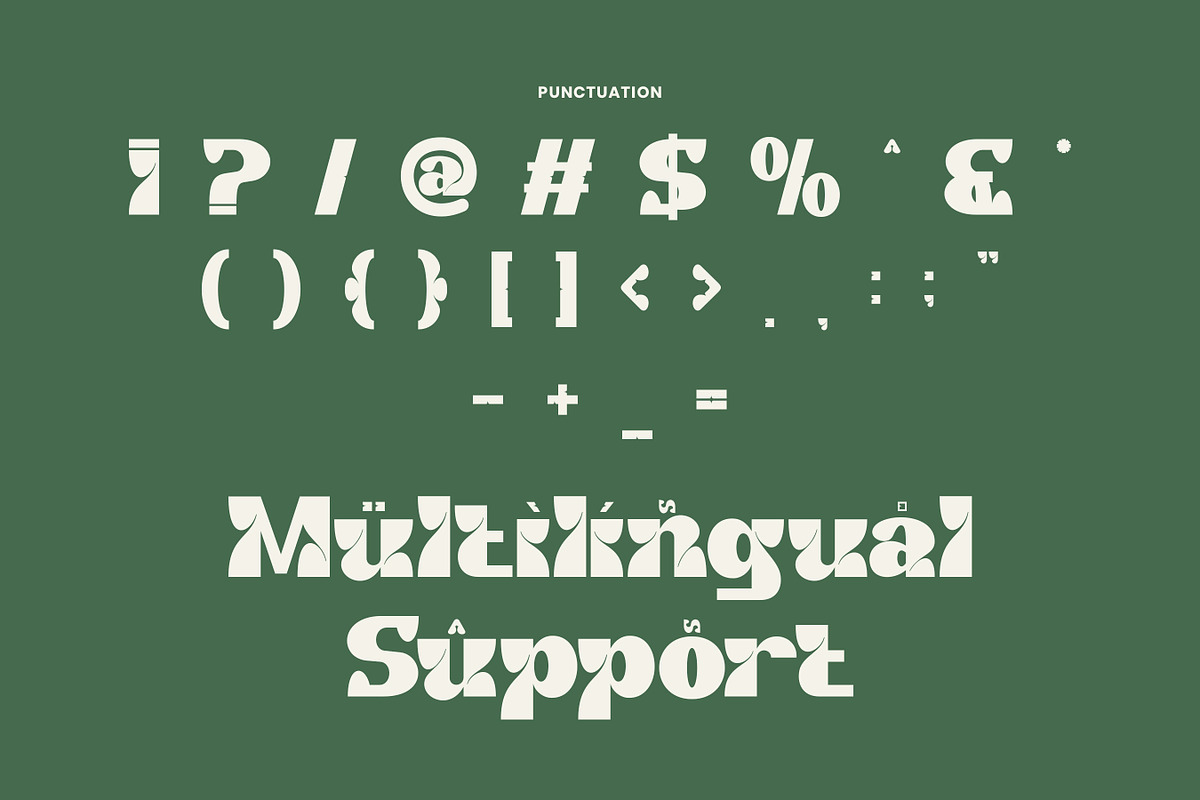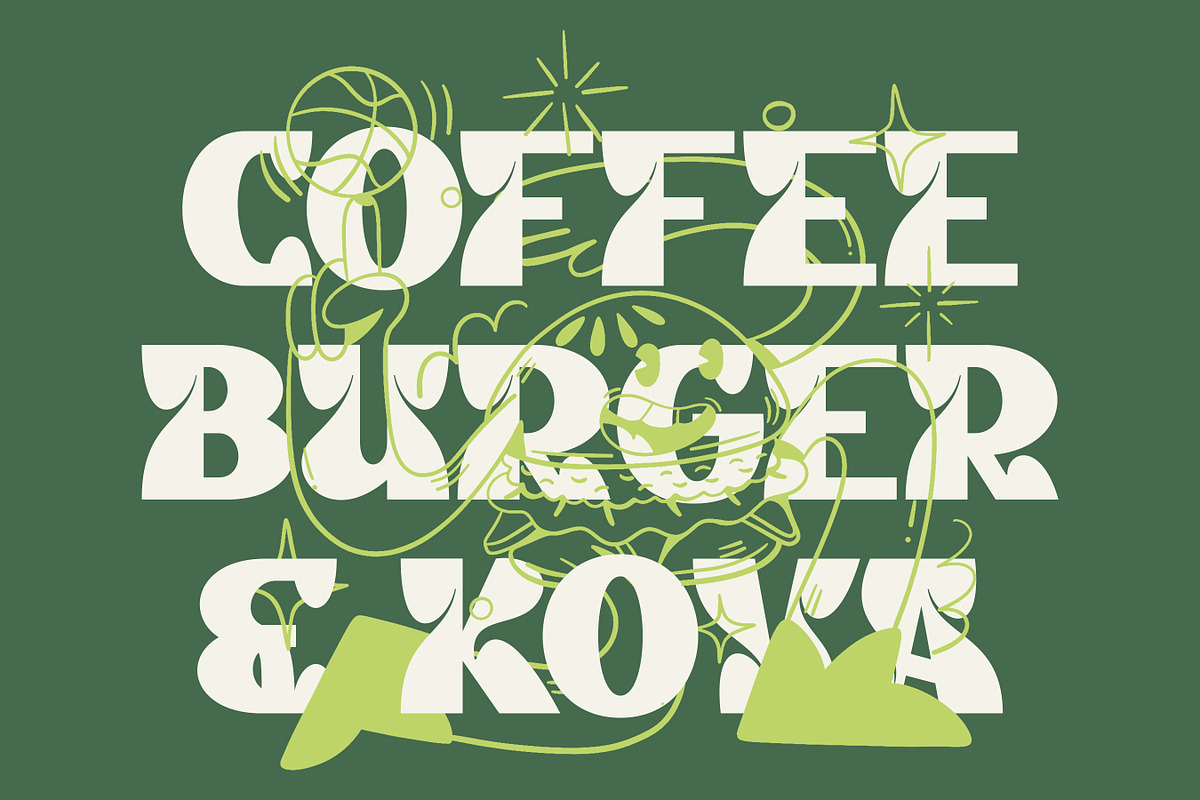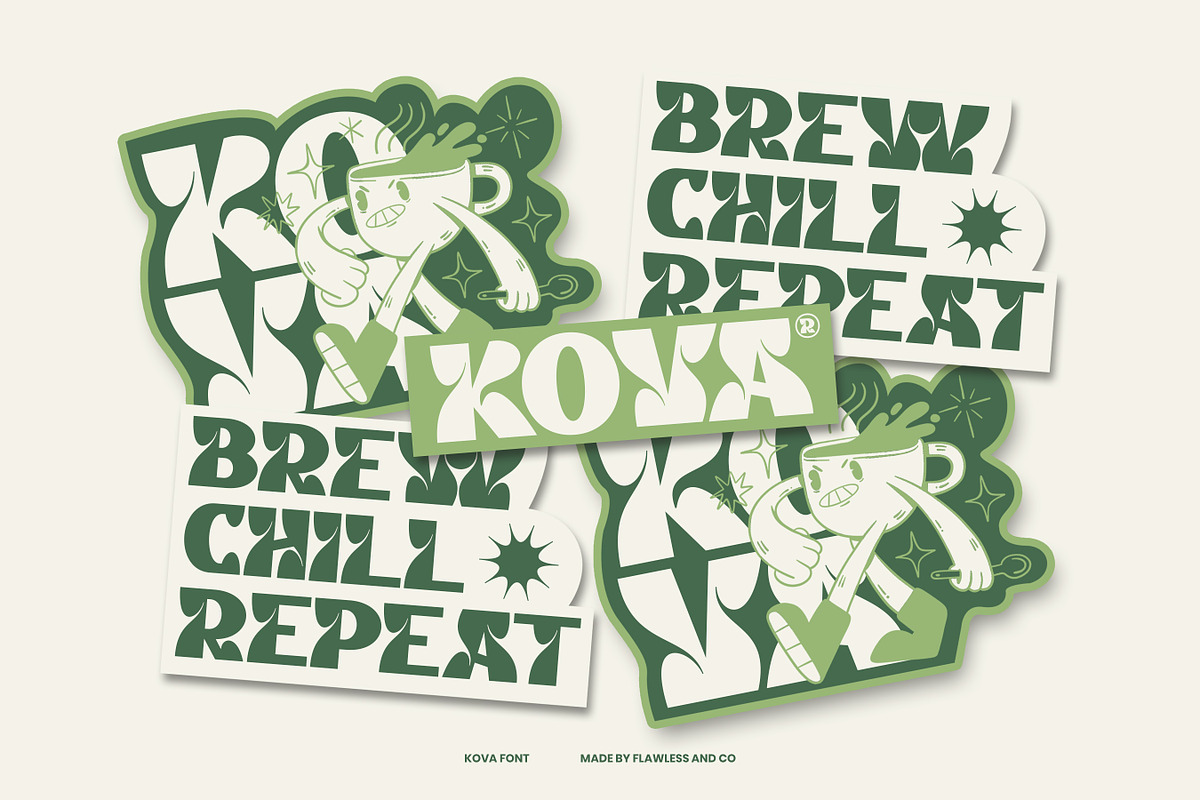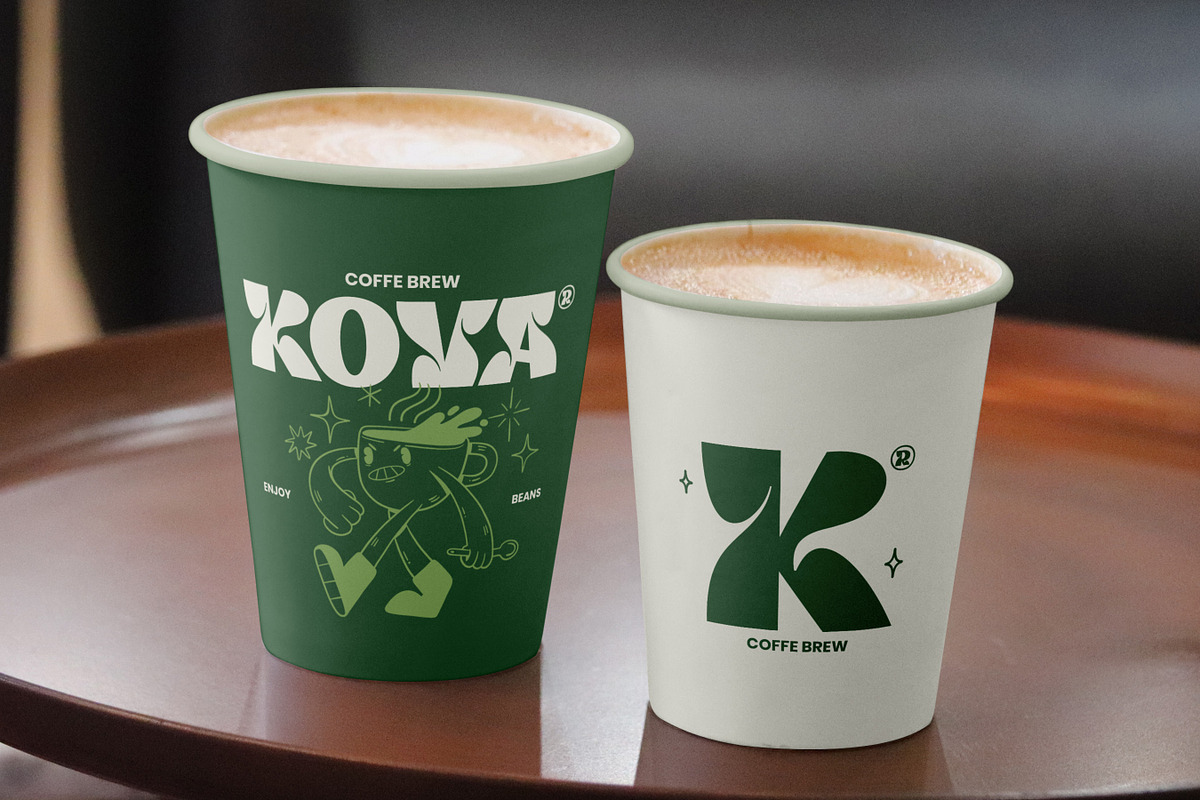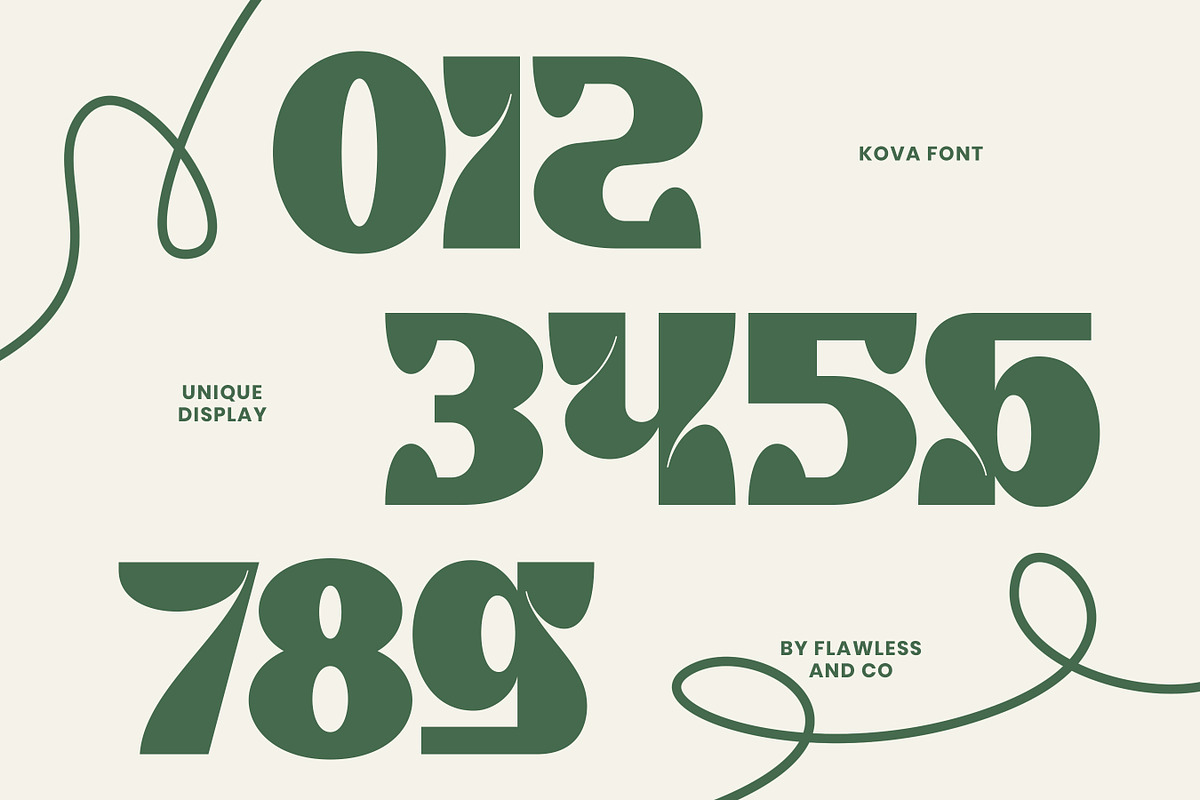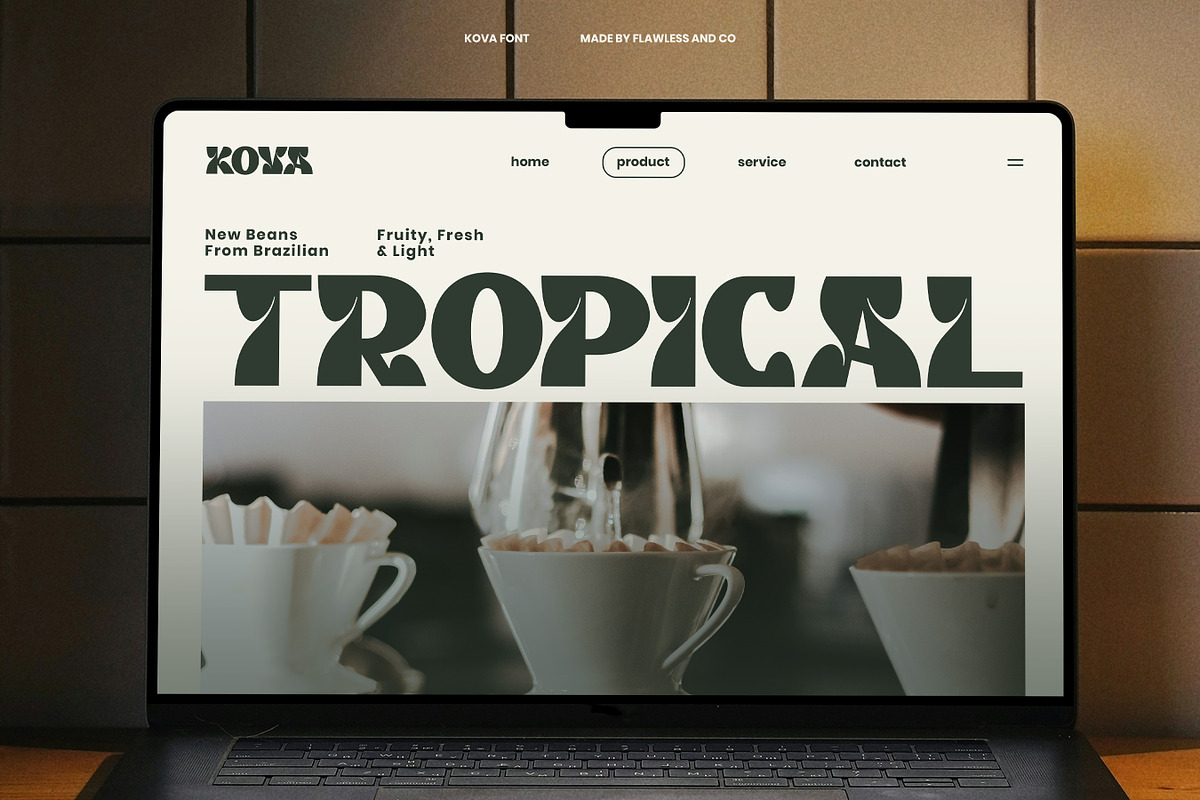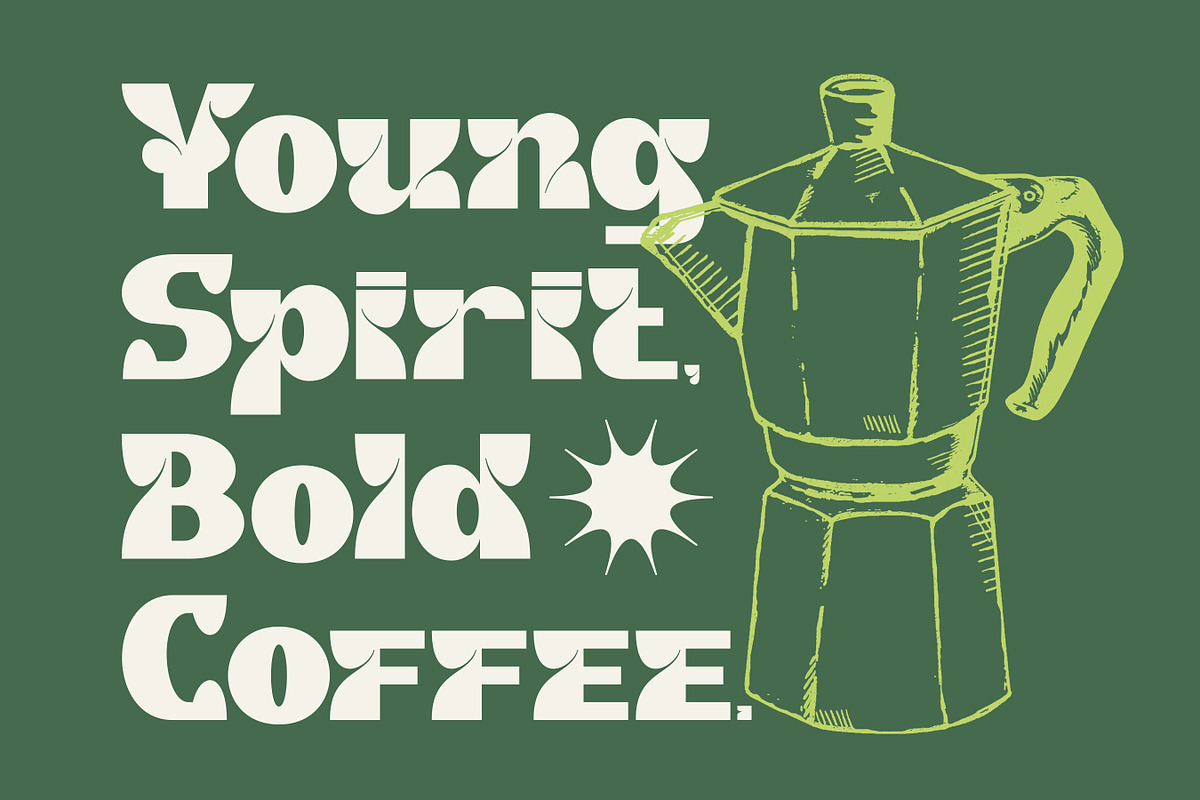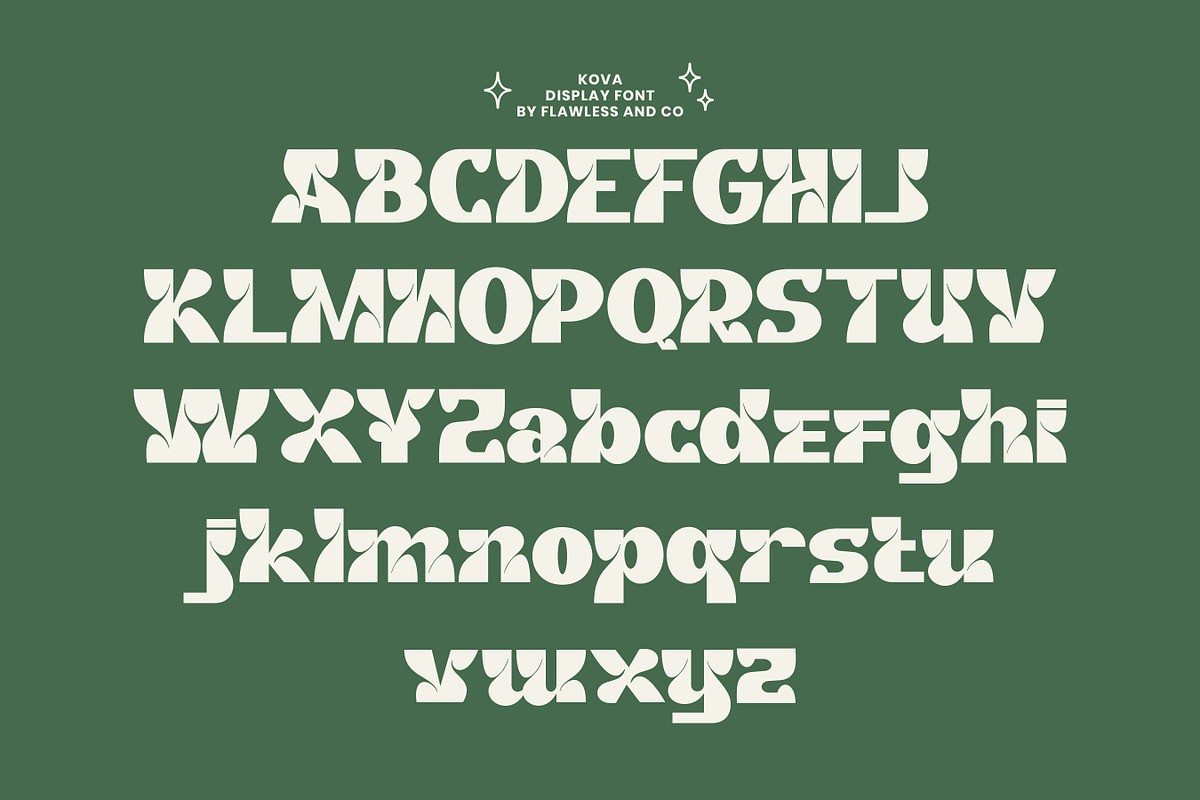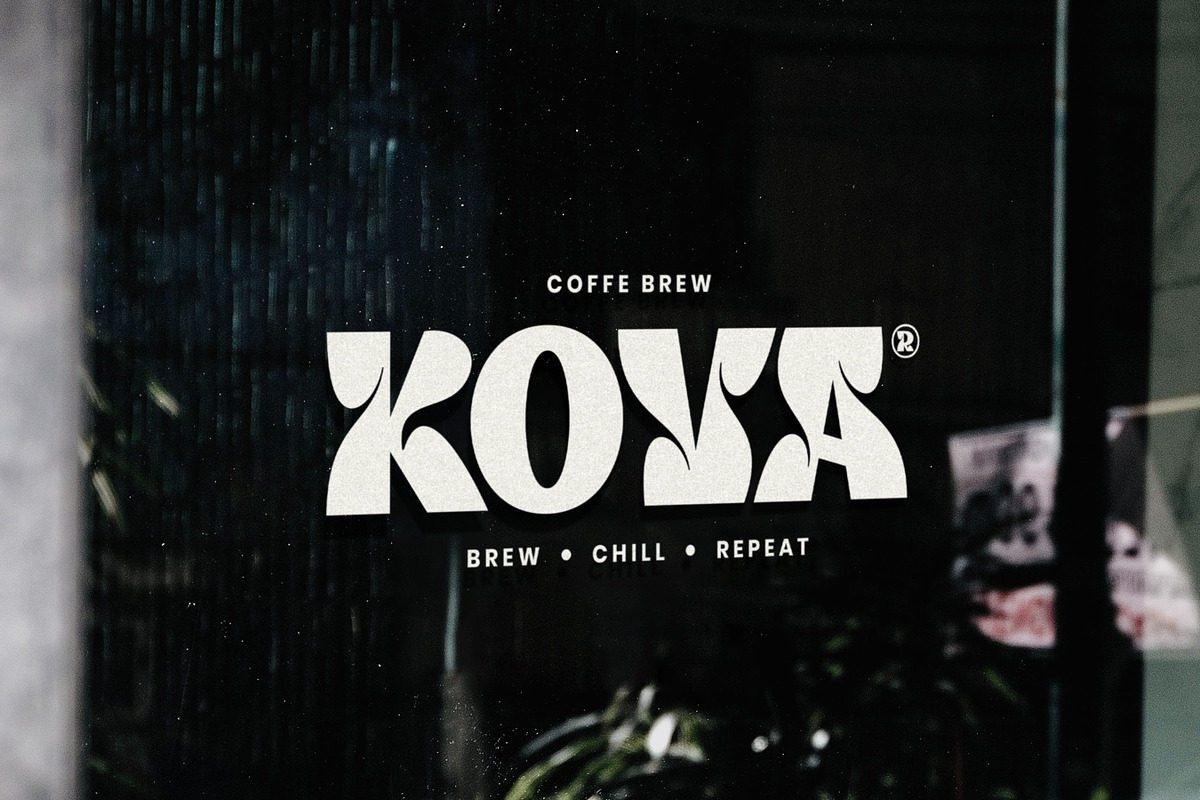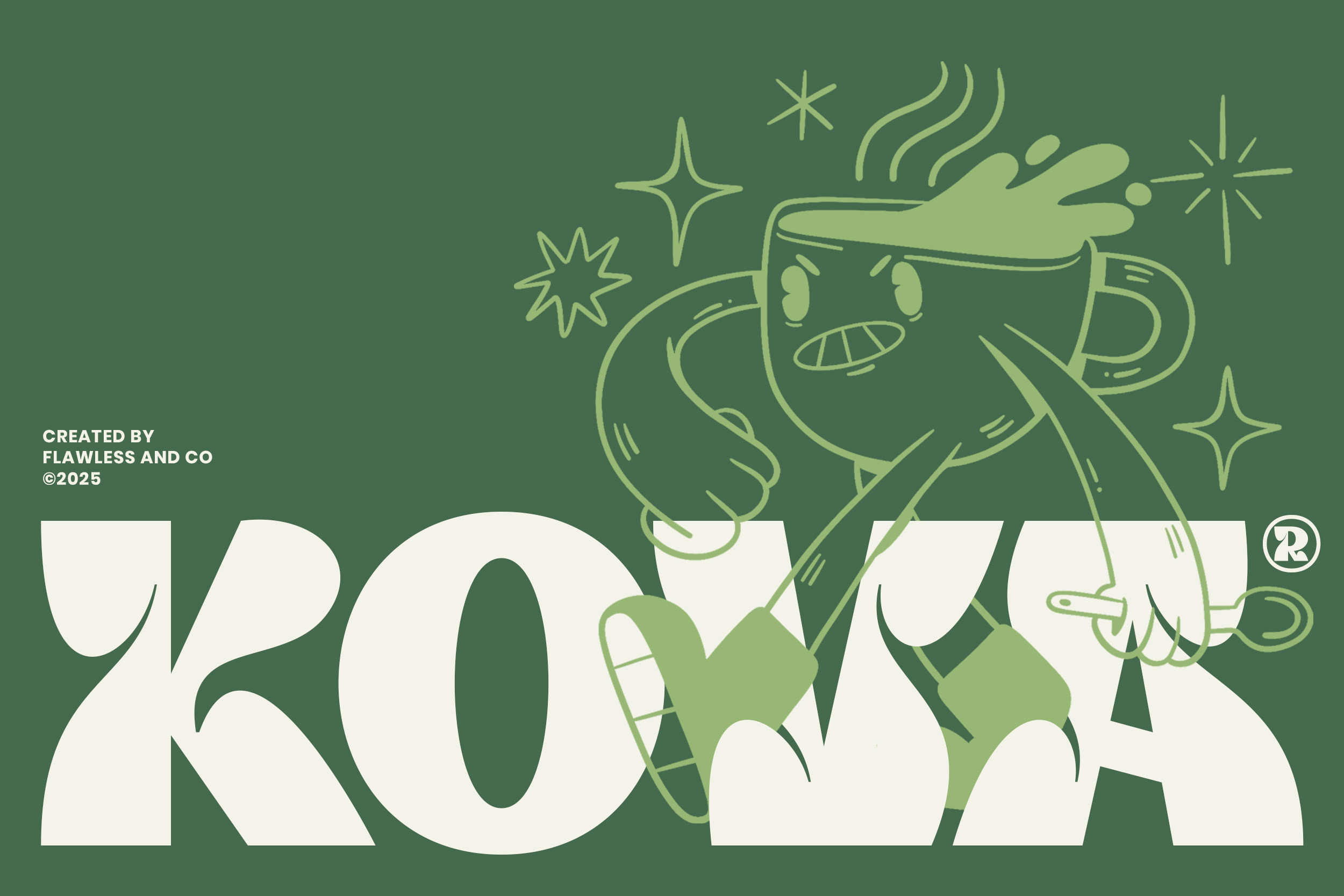
Kova - Playful Display Sans Font
Kova is a bold and quirky display sans font that brings a splash of energy to every design. With its chunky shapes, fun curves, and confident stance, Kova captures a sense of playfulness and creativity that stands out effortlessly. Perfect for projects that need a modern yet friendly touch, this typeface is designed to make your words jump off the page.
Who Should Use Kova?
Kova is perfect for designers, brand creators, illustrators, and creative studios who love to bring boldness and personality into their work. If you’re someone who enjoys blending modern aesthetics with playful energy, this font is made for you.
A Must-Have Font for "Brand and Logo" Creators and Designers
Kova is a must-have font for anyone who wants their brand to stand out with a bold, playful, and modern personality. Its strong shapes and confident curves make it ideal for logos, branding materials, and creative headlines. Perfect for designers who want to build a memorable visual identity, Kova brings energy, uniqueness, and charm to every project it touches.
Why Choose Kova for "Brand and Logo" Projects?
Kova’s strong geometric structure and fun personality make every logo instantly eye-catching. Unique Letter Design, Each letterform is crafted to bring individuality and freshness to your visual identity. Memorable Visual Impact, Its distinctive look ensures your brand leaves a lasting impression.
Suitable For
- Logo design and brand identity
- Packaging and product labels
- Posters and display headlines
- Apparel and merchandise design
- Social media graphics and marketing materials
- Editorial and magazine titles
- Creative agencies and startups seeking a bold modern style